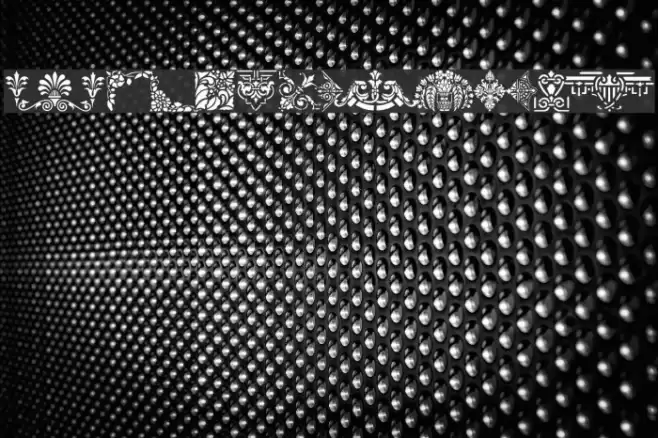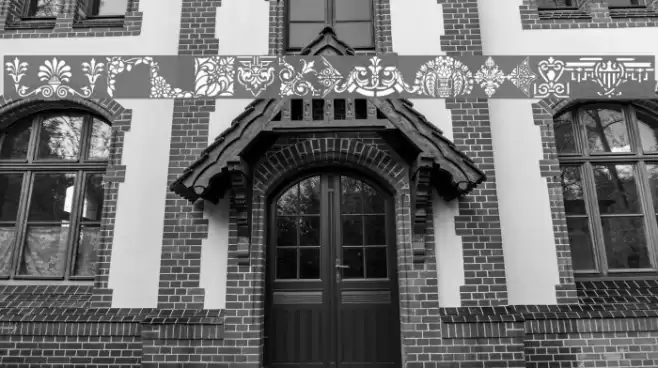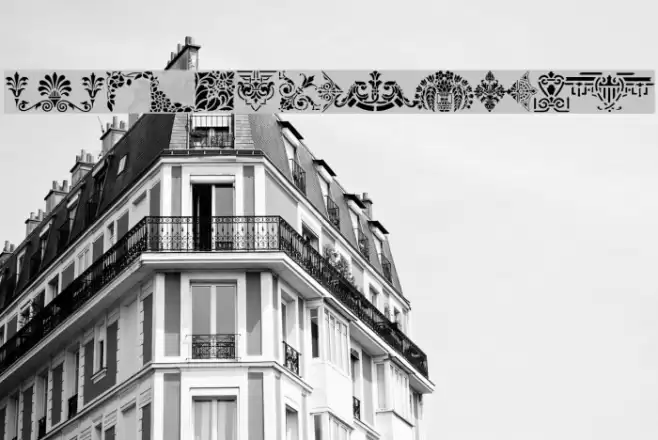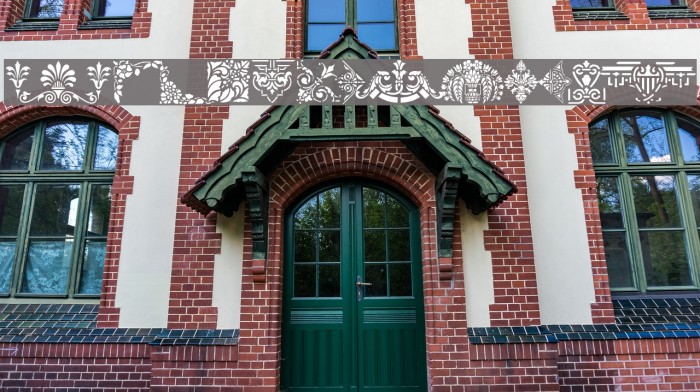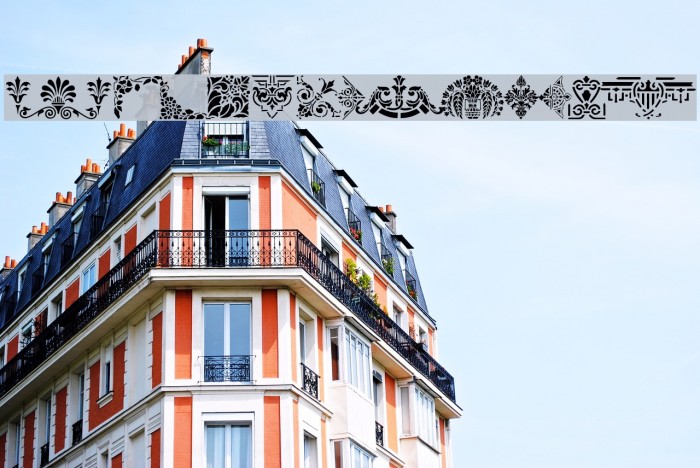
Victorian Designs Three Font
Victorian Designs Three Description
This design is a collection of intricate Victorian-style ornaments and motifs, characterized by elaborate floral patterns and symmetrical arrangements. The designs are highly decorative, featuring detailed foliage, flowers, and geometric shapes that evoke a sense of elegance and sophistication typical of the Victorian era. These elements are often used to embellish borders, frames, and other decorative applications, providing a rich and ornate aesthetic. The motifs are predominantly black, allowing for a striking contrast against lighter backgrounds, which enhances their visual impact.
Intricate Victorian-style ornamental motifs with floral and geometric patterns from Uncategorized fonts.
- Font: Victorian Designs Three
- Proposed Projects: Ideal for use in vintage-themed invitations, decorative borders, wallpaper designs, and packaging for luxury goods.
- Overall Style: Vintage
- Use Case: Decorative elements, Borders, Invitations